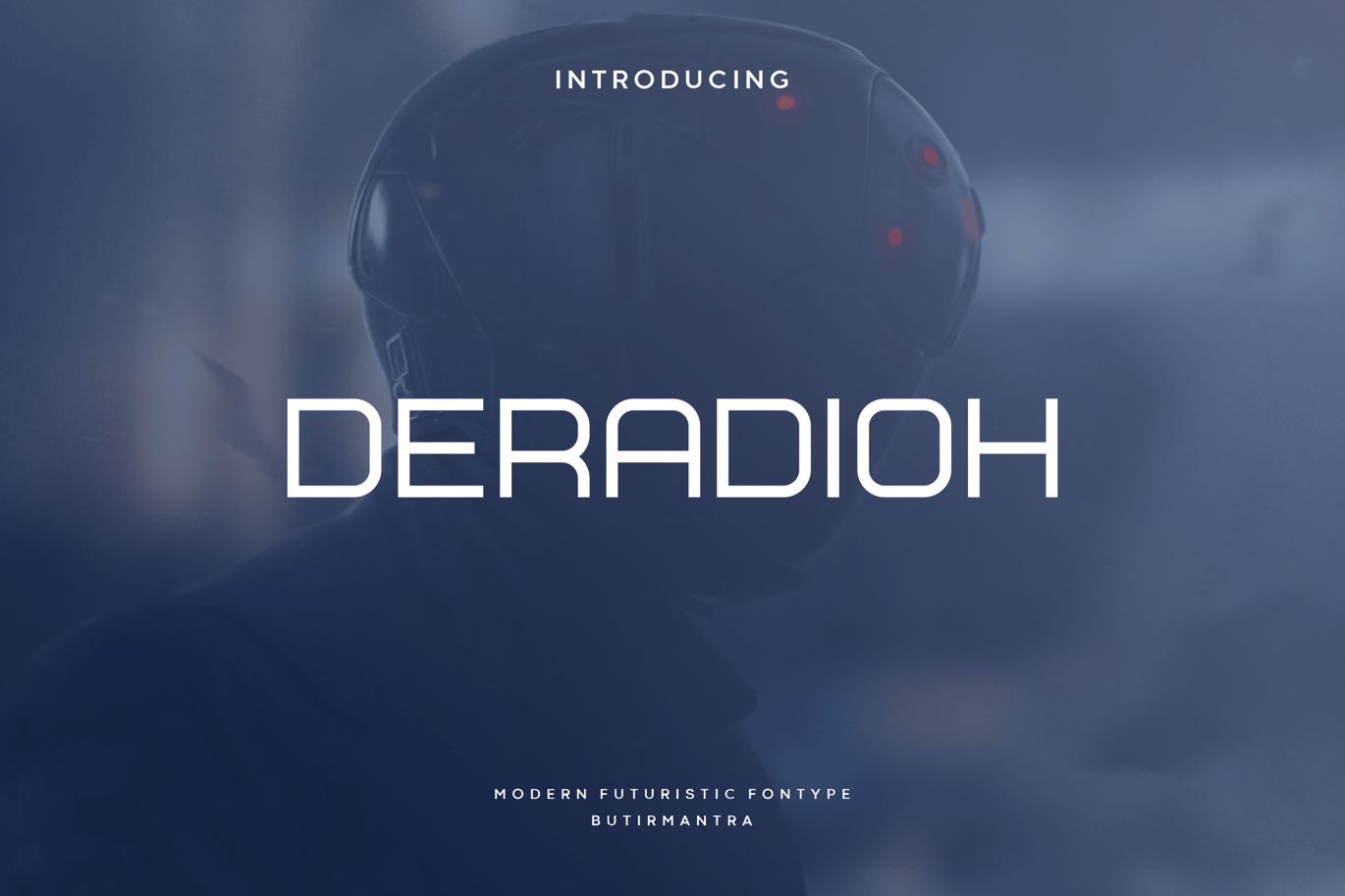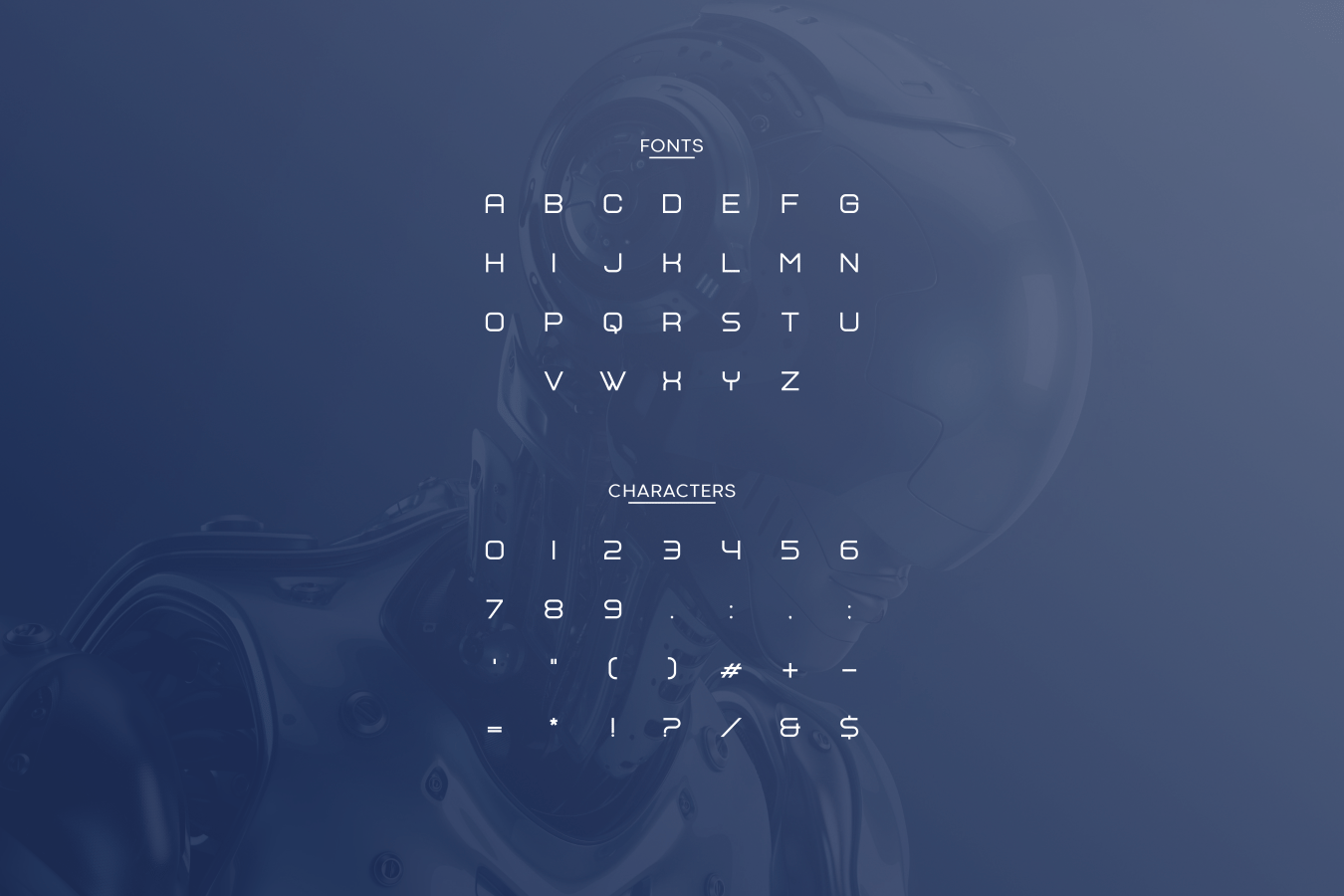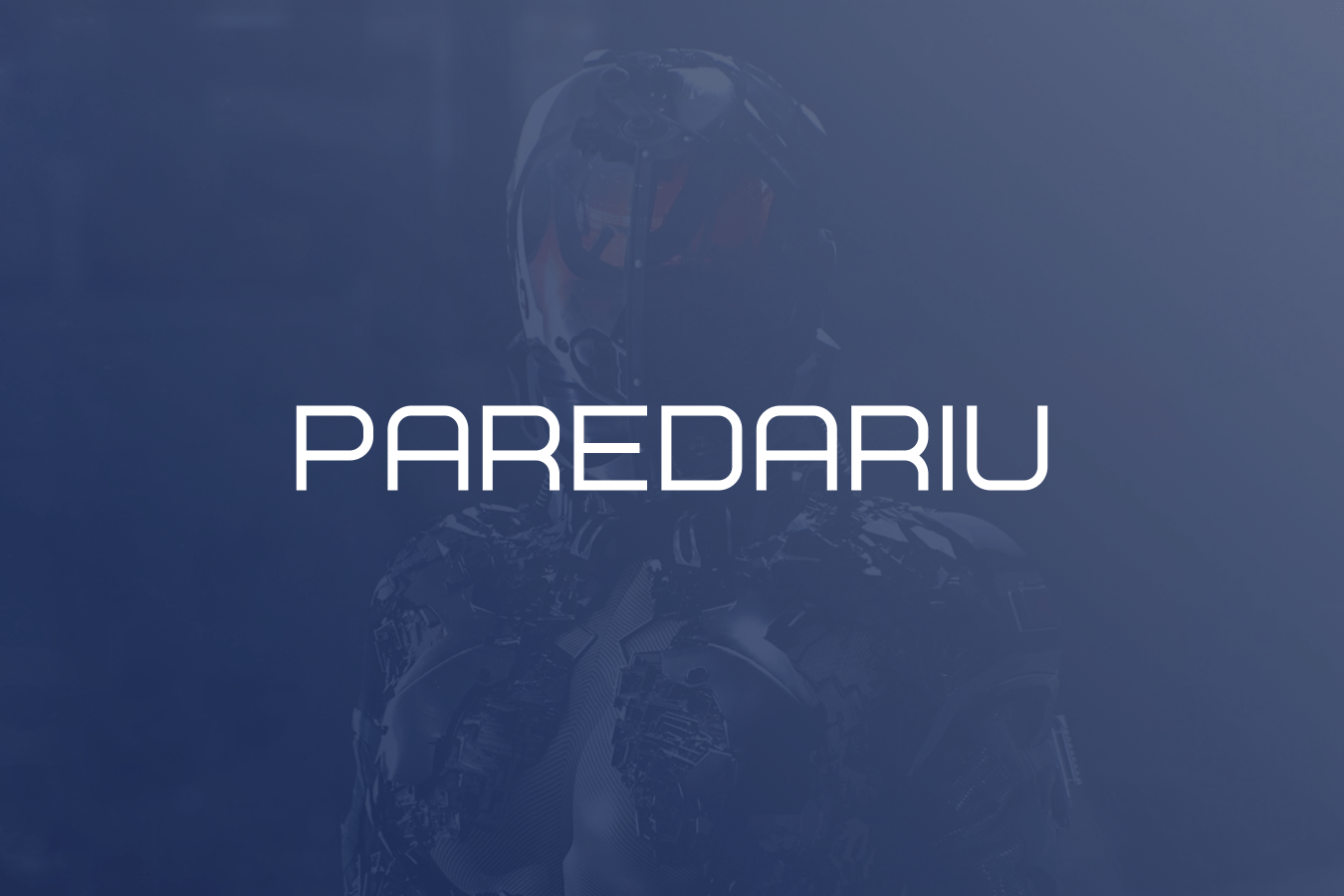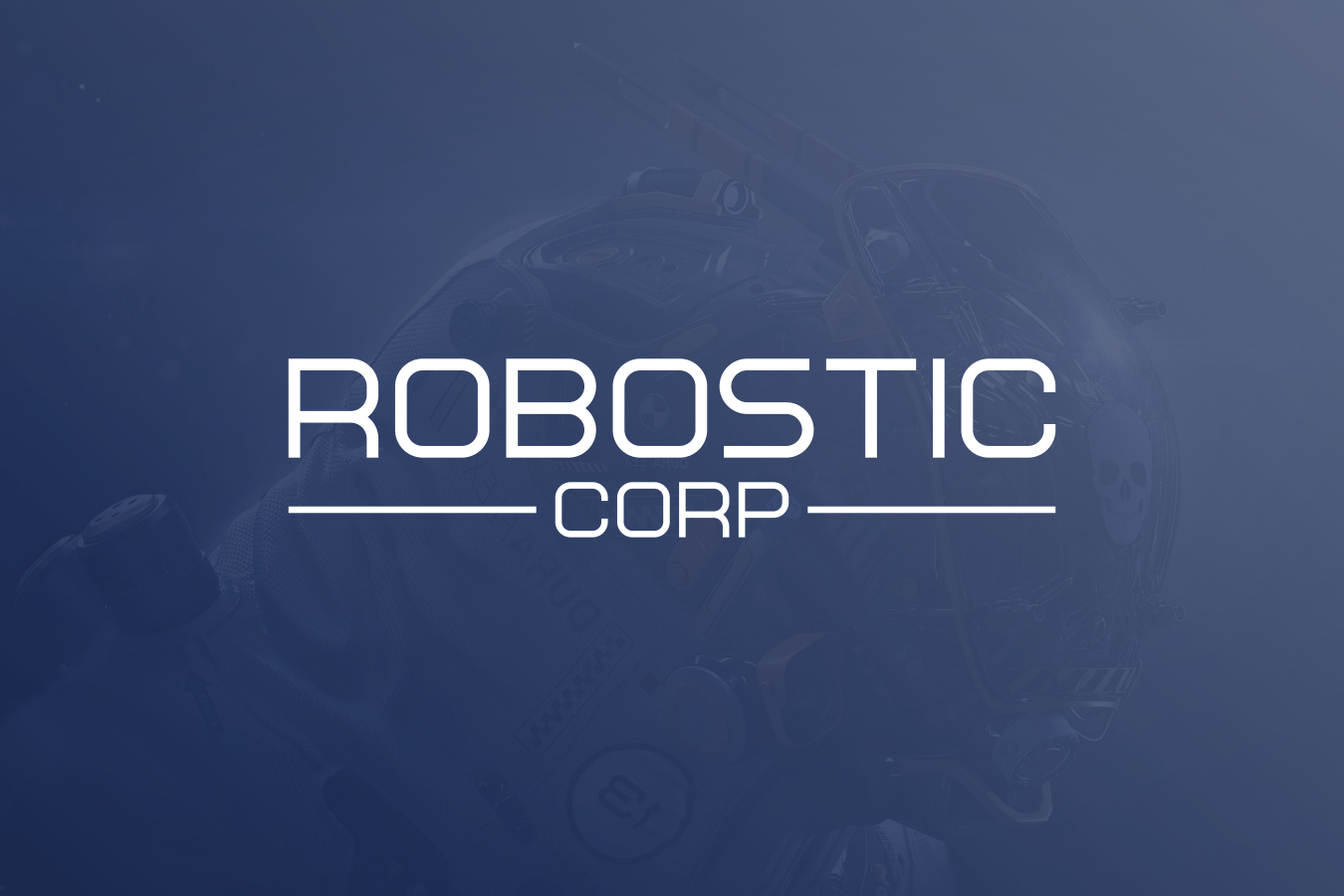
Deradioh – Futuristic Font
Deradioh is a futuristic font, a font inspired by the visual of technology that we can find from logo, sci-fi movies, games, and the present gadgets. Designed with minimalist style and unique letterforms, a perfect choice to use on logos, labels, posters, packaging, books, movies, presentations, games, and much more! Deradioh complete with some elegant touch that give your design looks more futuristic and dynamic.